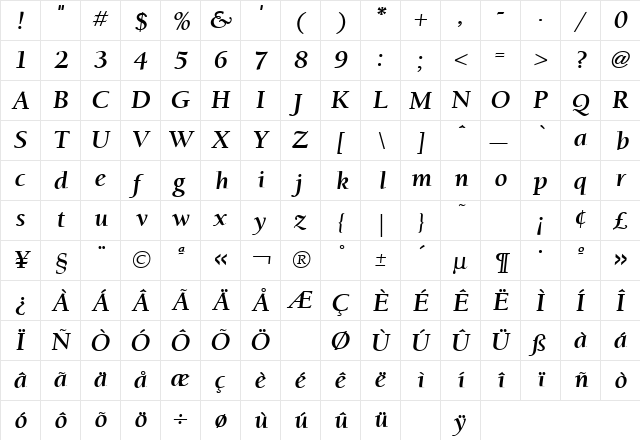
Berkeley Oldstyle Bold Italic Font Preview
Design Context for Berkeley Oldstyle Typeface
Berkeley Oldstyle carries the refined structure of traditional serif typography, with bracketed terminals and considered proportions that communicate credibility and craft. The slanted form adds forward momentum and visual energy. The heavy weight commands attention and anchors typographic hierarchies.
Pro Tip: Use Berkeley Oldstyle for editorial body copy and considered headline work. Pair with a neutral sans for UI elements or captions to create a classic hierarchy.